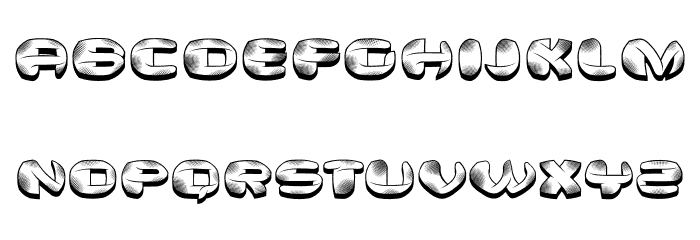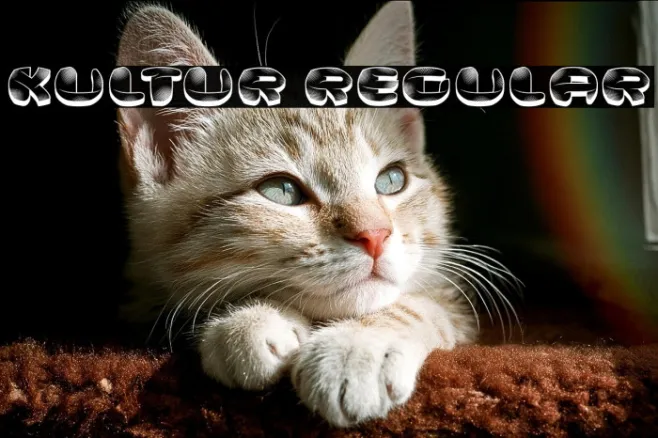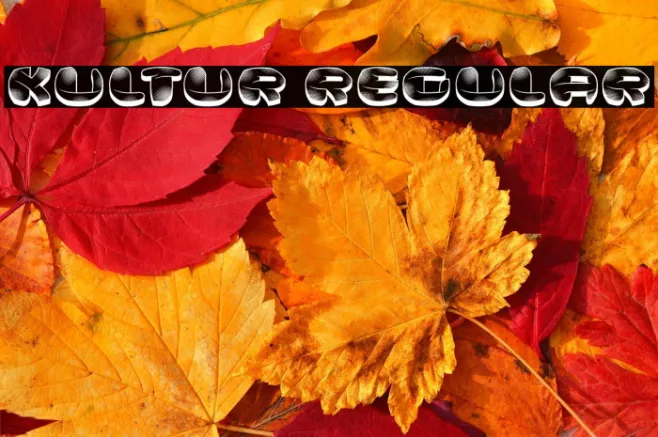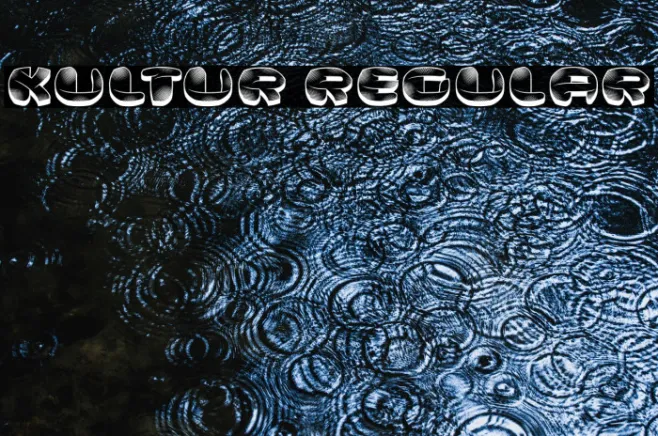
Kultur Regular Font
This font features a bold, three-dimensional style with a distinct retro-futuristic vibe. Each character is crafted with a unique shading technique that gives it a metallic, embossed appearance. The letters are rounded and have a playful yet robust presence, making them stand out in any design. The font's structure is consistent, with a uniform thickness that adds to its cohesive look. The shading creates a sense of depth and dimension, enhancing its visual appeal. This font is perfect for projects that require a bold statement or a touch of vintage flair.
A bold, three-dimensional font with a retro-futuristic style and metallic shading.
- Proposed Projects: Ideal for posters, logos, video game titles, and any design needing a bold, standout typeface.
- Overall Style: Retro-Futuristic